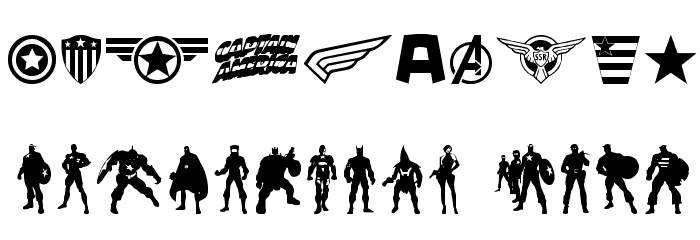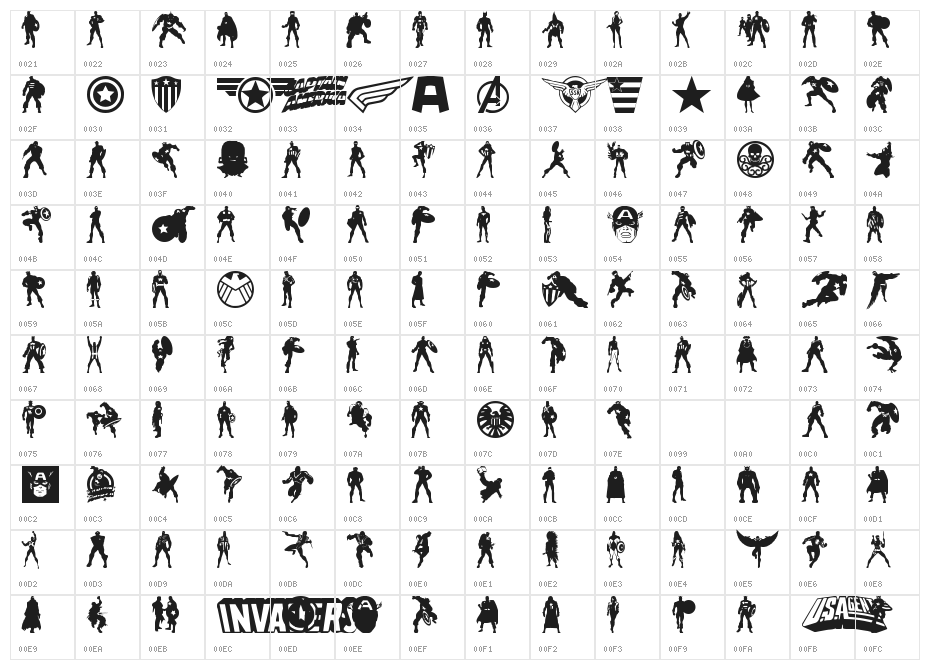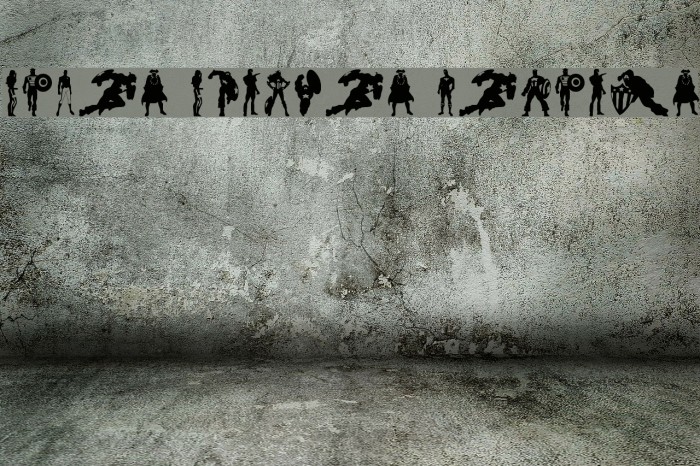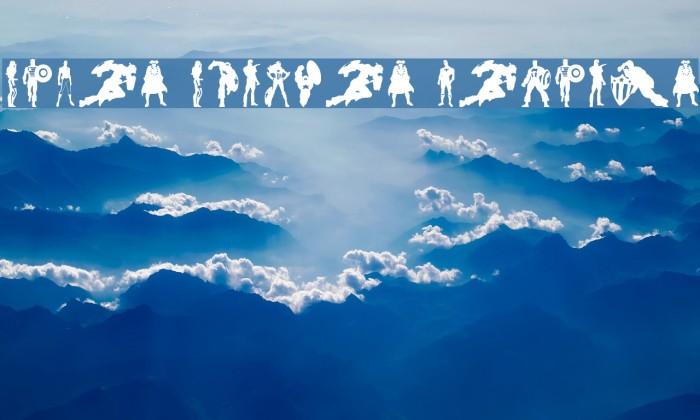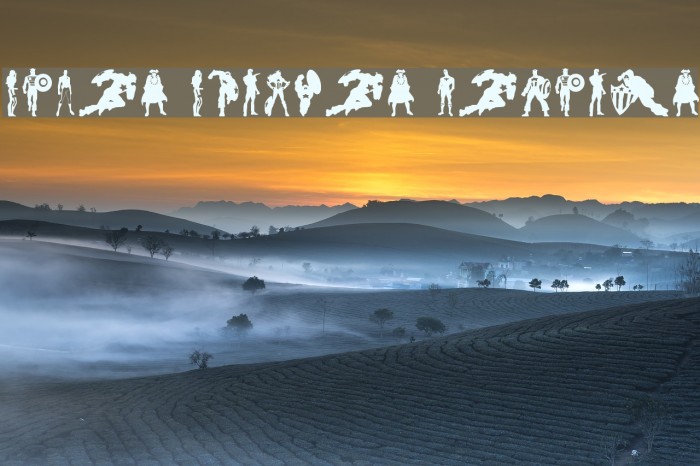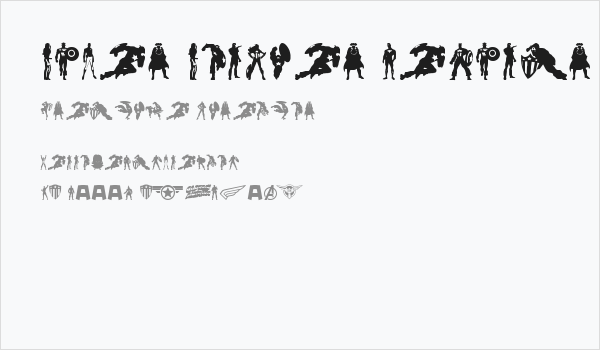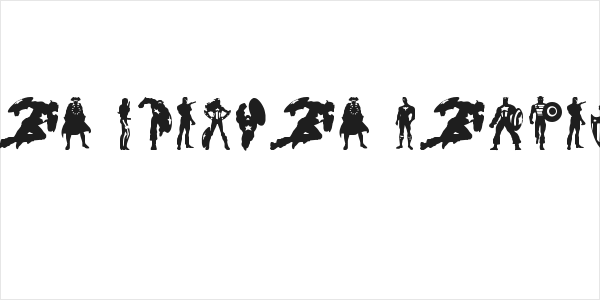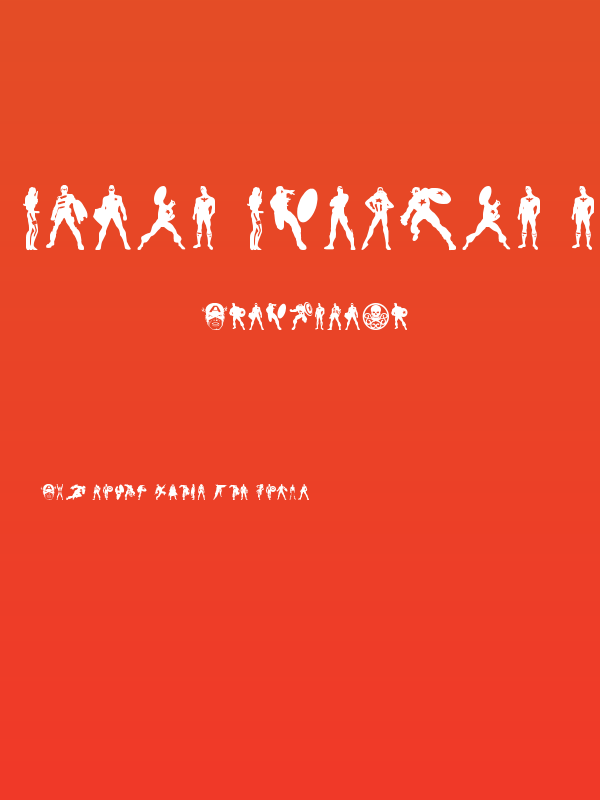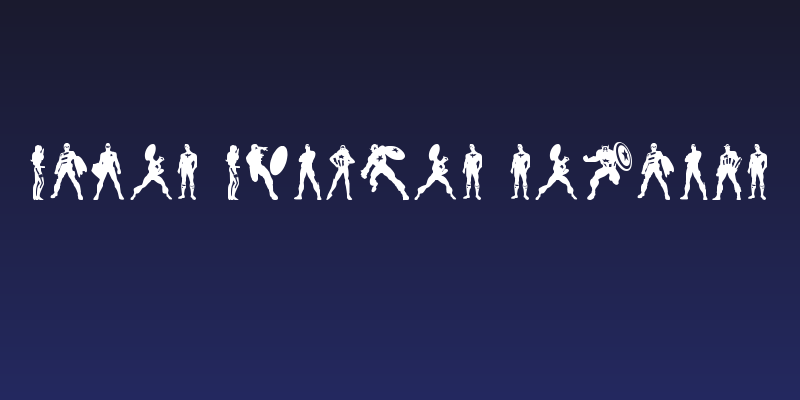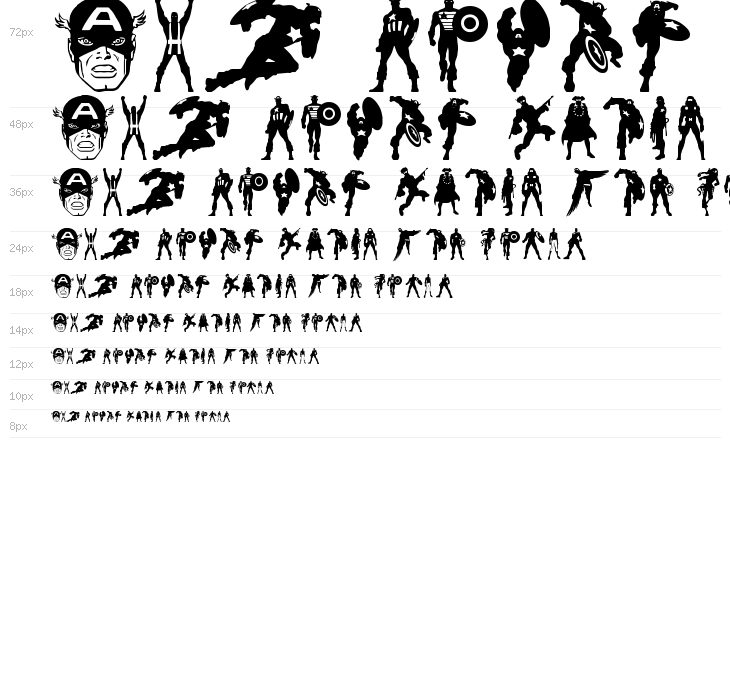
Super Soldier Regular Font
Super Soldier Regular Description
A decorative display font composed entirely of bold, high-contrast silhouette illustrations and logos inspired by comic book superheroes, featuring dynamic poses, shields, and emblematic motifs.
| Overall Style | Decorative, Comic, Thematic |
| Use Case | Logos, Headlines, Themed graphics |
| Proposed Projects | Posters, comic book covers, themed party invitations, fan art, branding for superhero-related events. |